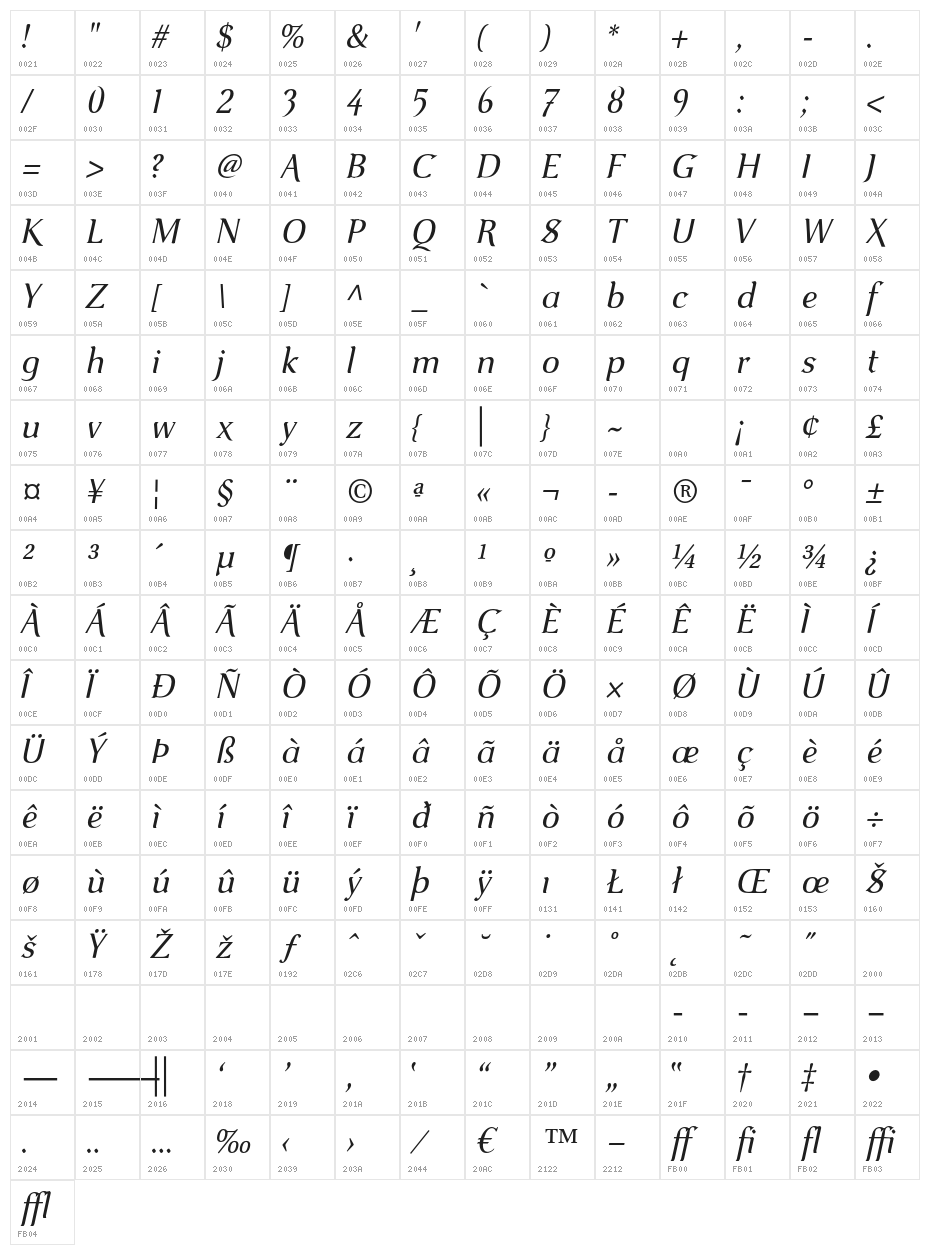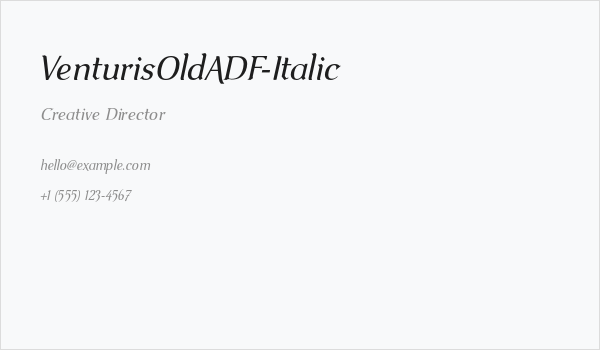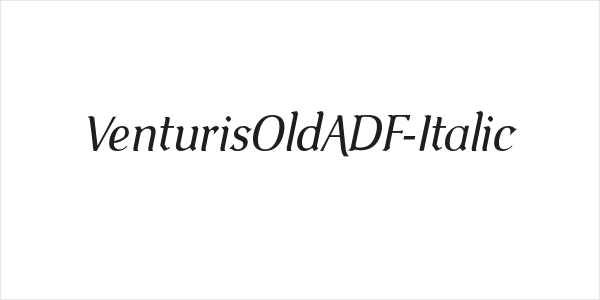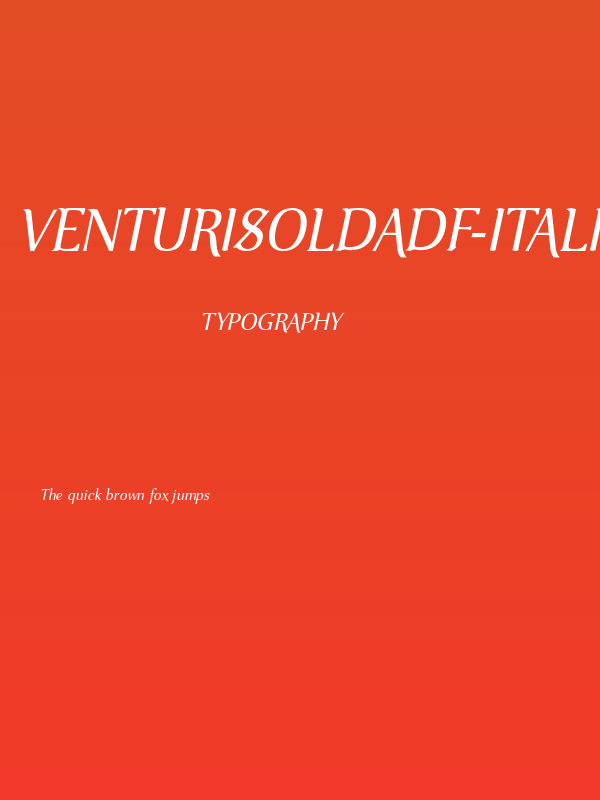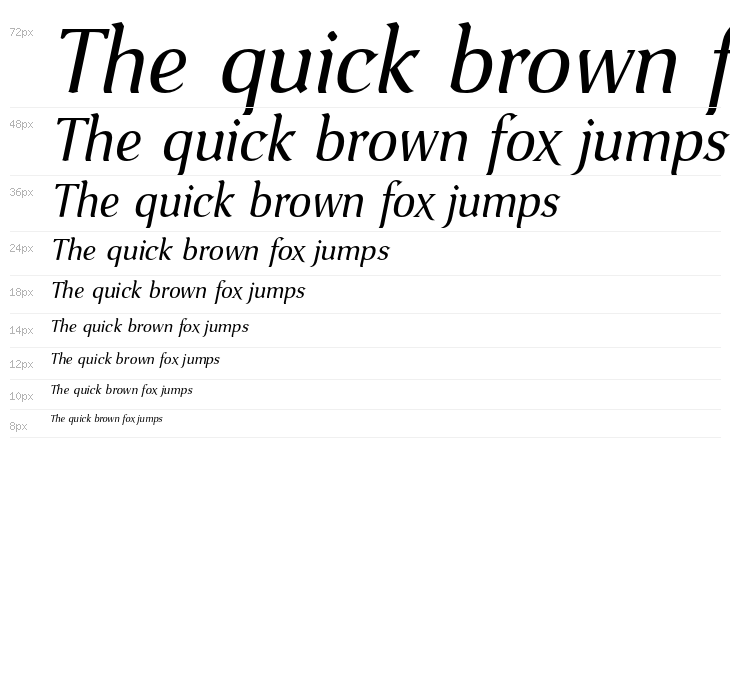
VenturisOldADF-Italic Font
VenturisOldADF-Italic Description
This font exudes a classic elegance with its italicized form, featuring smooth, flowing curves and a sophisticated style. The letters are slightly slanted, adding a dynamic and graceful touch to the text. The uppercase characters are tall and refined, while the lowercase letters maintain a consistent flow, enhancing readability. The numerals are distinct and well-proportioned, complementing the overall aesthetic. Special characters are thoughtfully designed, maintaining the font's cohesive look. This font is ideal for projects that require a touch of sophistication and elegance.
| Proposed Projects | Ideal for wedding invitations, elegant branding, book covers, and editorial design. |